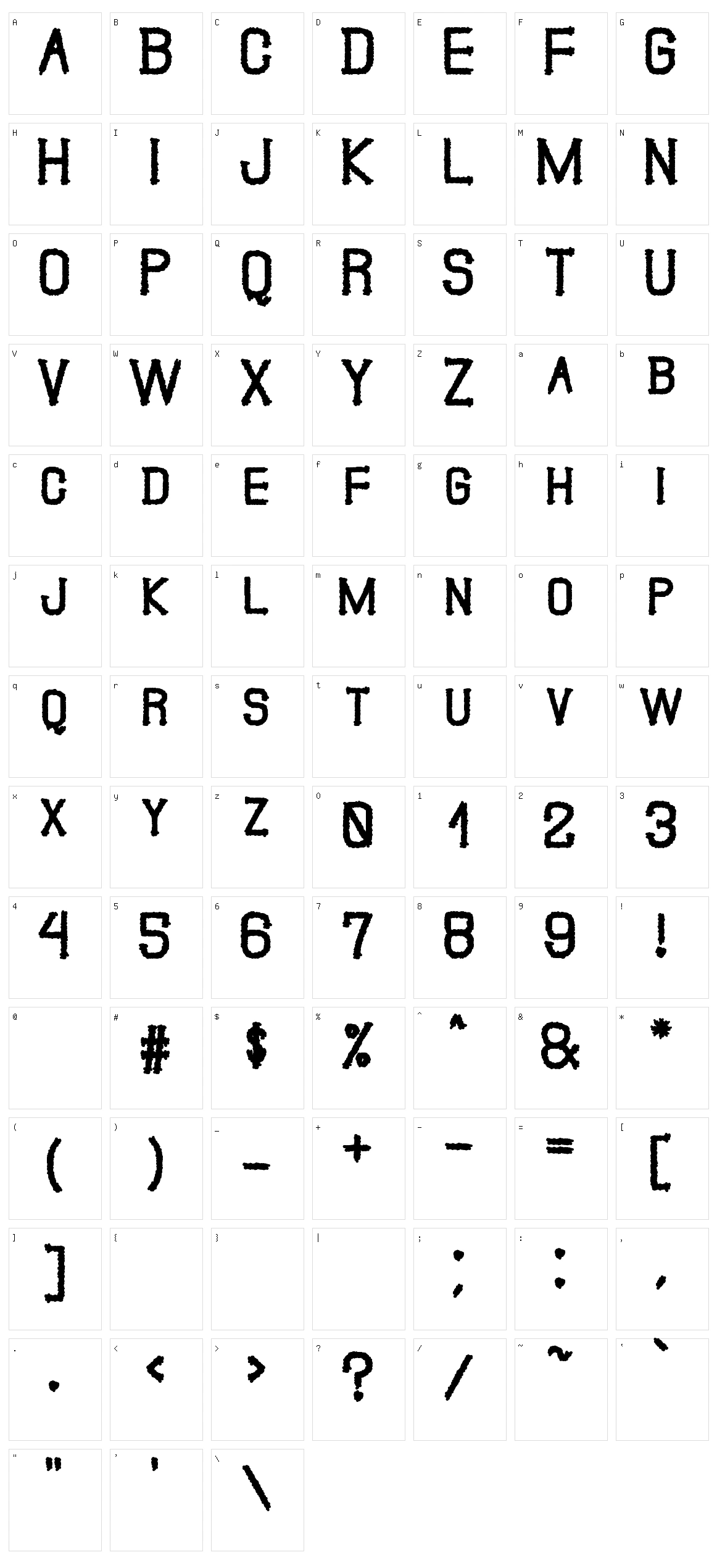
The free font The Guns Smoke St is carefully designed by Southype, showcasing a thoughtful balance of creativity and usability and falls under the Eroded font style. When you download the ZIP file, it contains only 57.84 KB of font files, making it lightweight and quick to download. Please review the license details below to understand permitted usage and distribution rights. If license information is not available, we recommend using this font for personal projects only or contacting the author directly for commercial usage permissions.